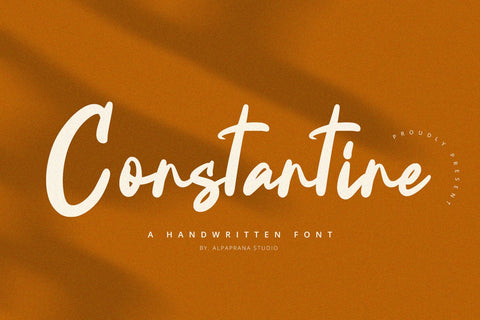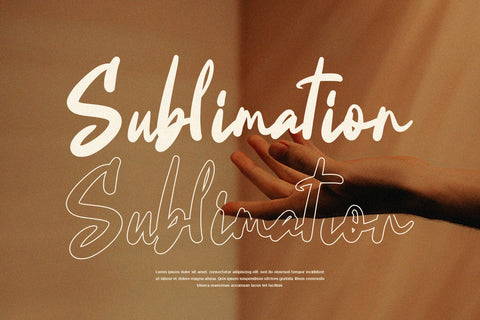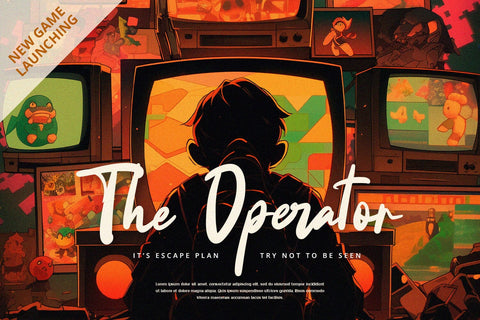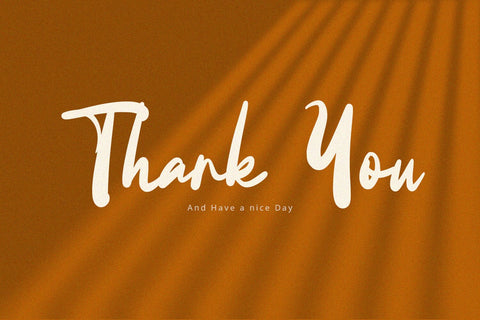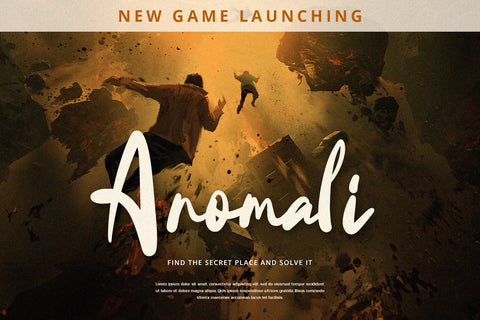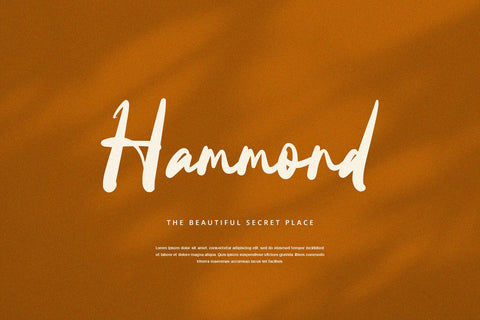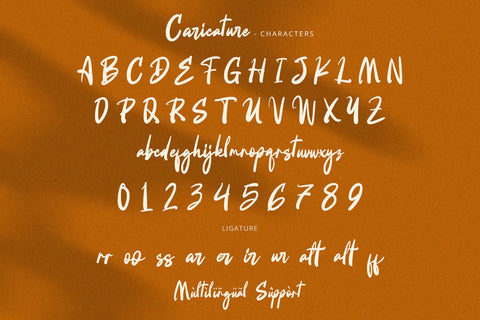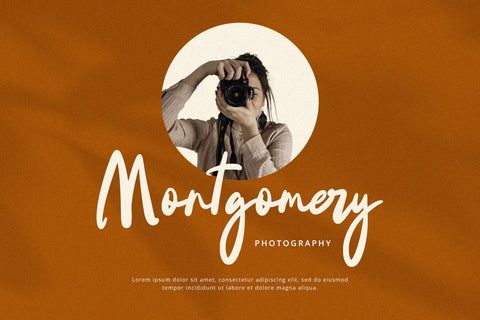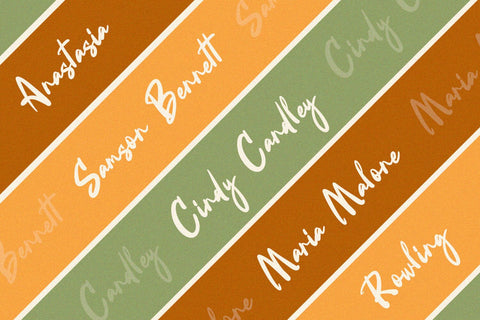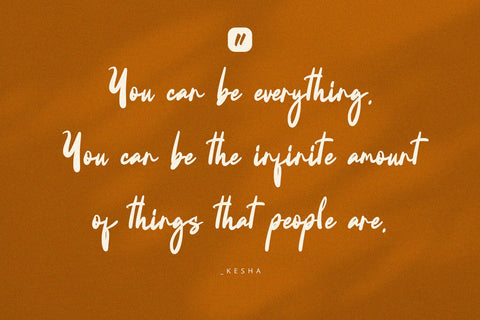
Constantine - Handwritten Font
Constantine is a handwritten font with unique and modern feels. It will be perfectly used for Branding, Logo Design, Lettering, Logotype, Clothing, Poster, magazine, packaging, posters, shopping bags, t-shirts, book covers, photography, special events and other design project.